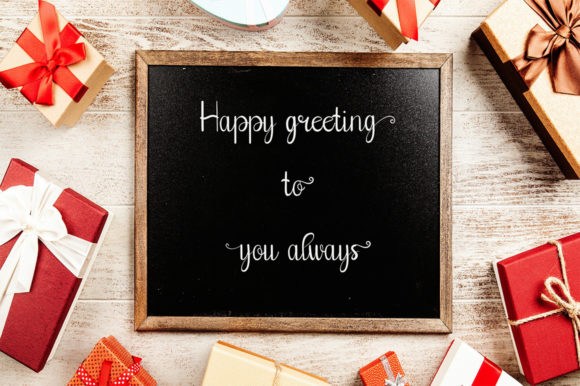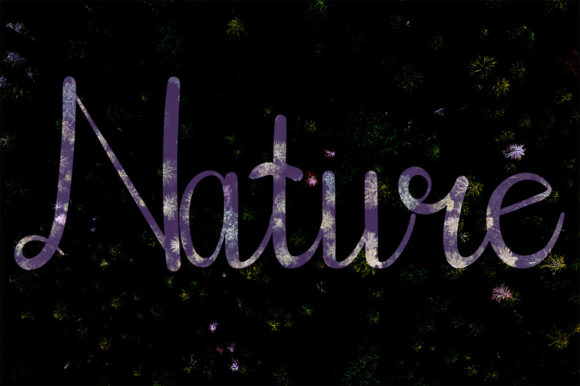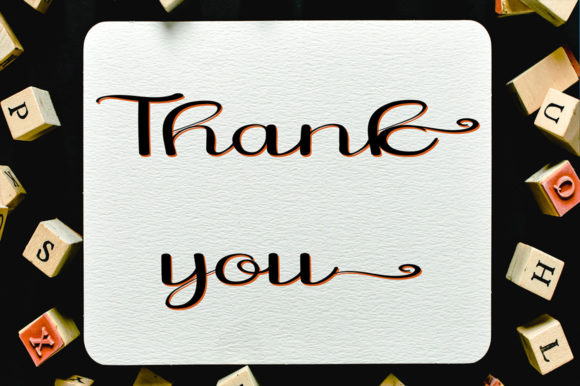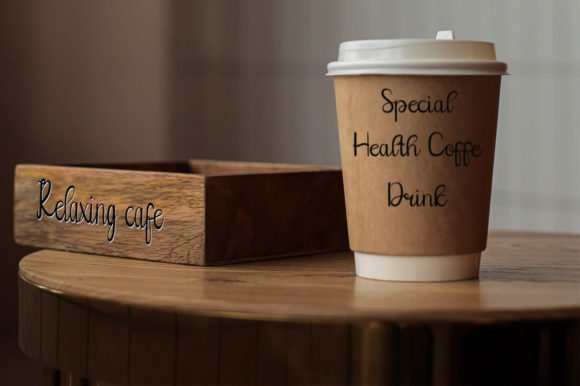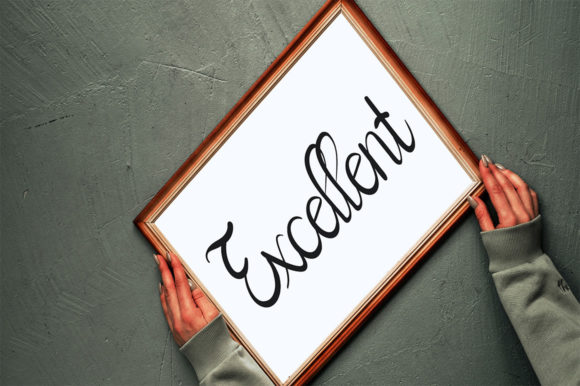
About Haystarly Font
Haystarly is a delicate, elegant and flowing handwritten font. It has beautiful and well balanced characters and as a result, it matches a wide pool of designs. This font is PUA encoded which means you can access all glyphs and swashes with ease!